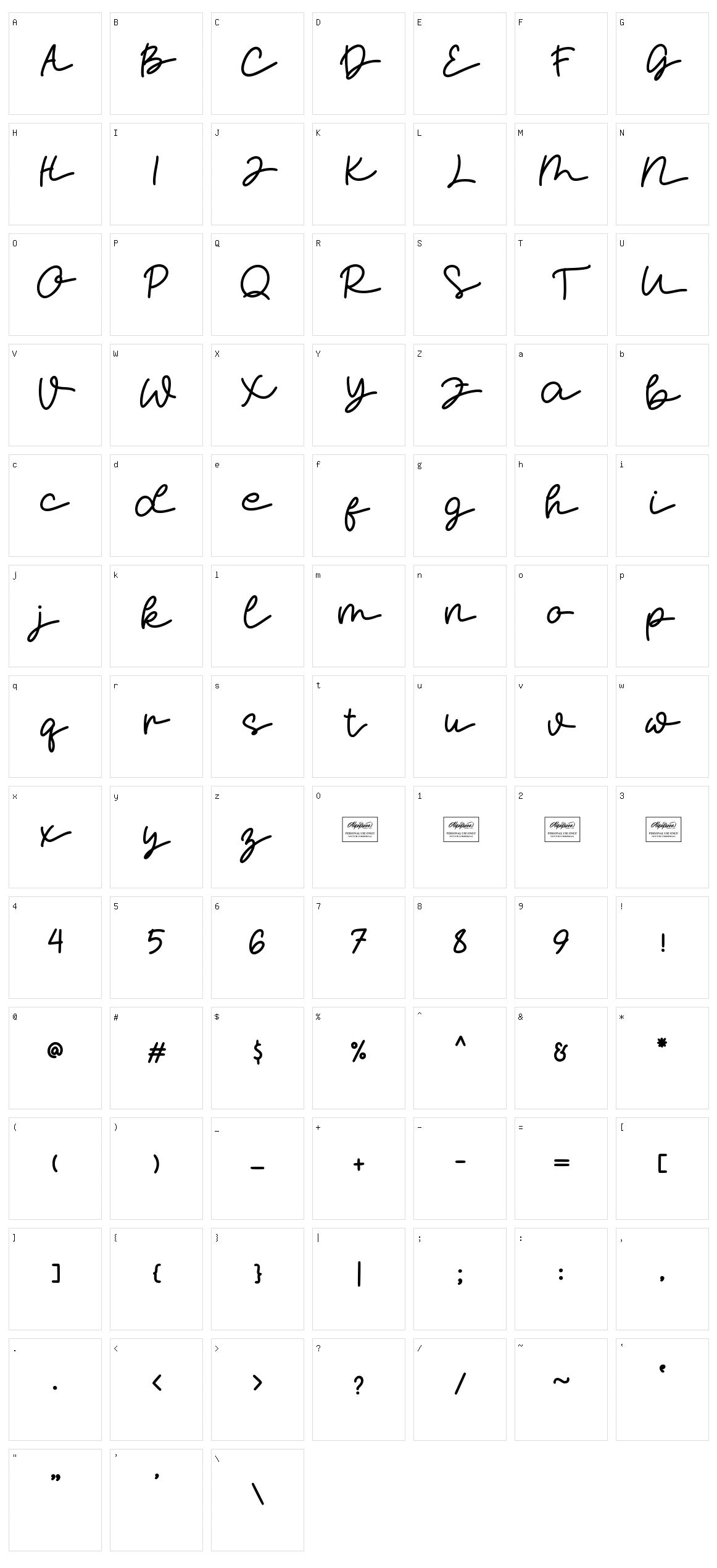
The free font Momy & Marsa is carefully designed by Alpaprana Studio, showcasing a thoughtful balance of creativity and usability and falls under the Script font style. When you download the ZIP file, it contains only 1583.75 KB of font files, making it lightweight and quick to download. Please review the license details below to understand permitted usage and distribution rights. If license information is not available, we recommend using this font for personal projects only or contacting the author directly for commercial usage permissions.